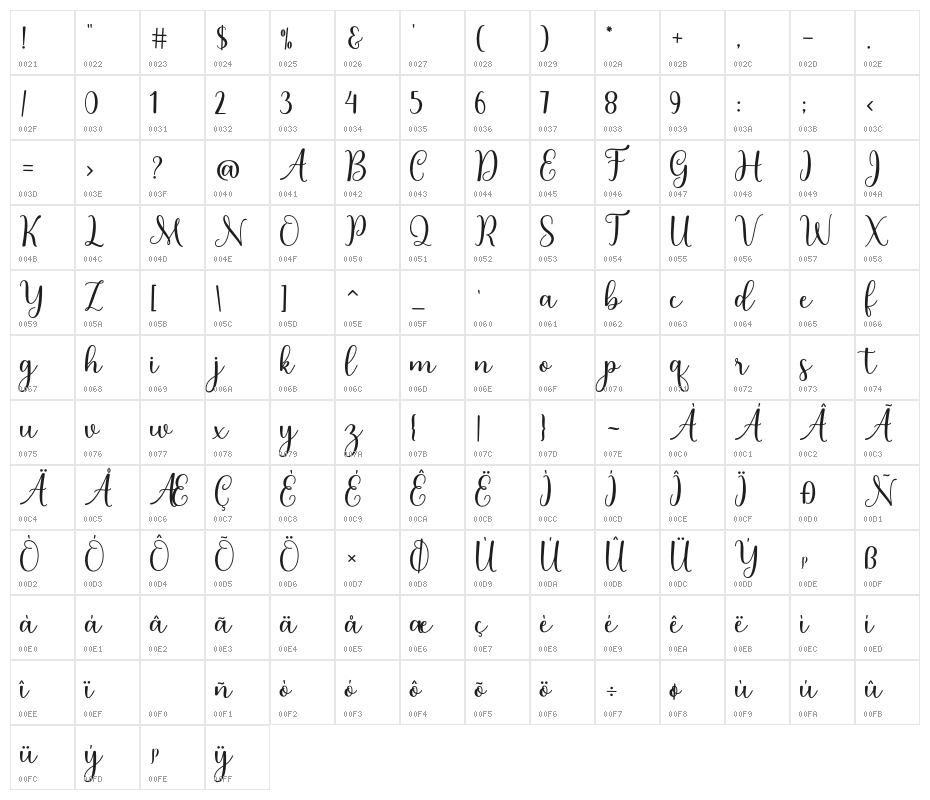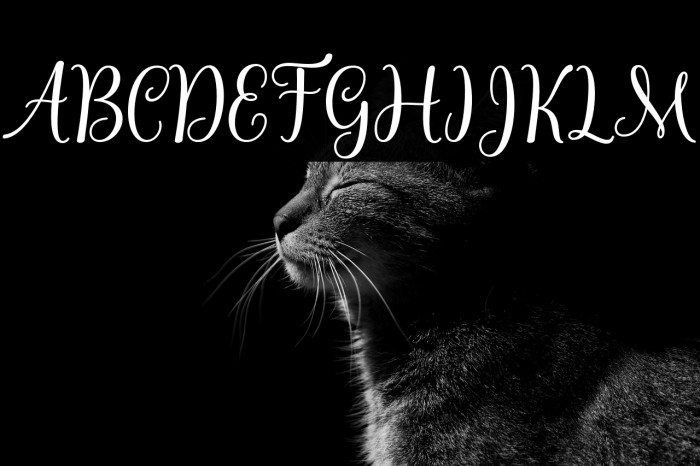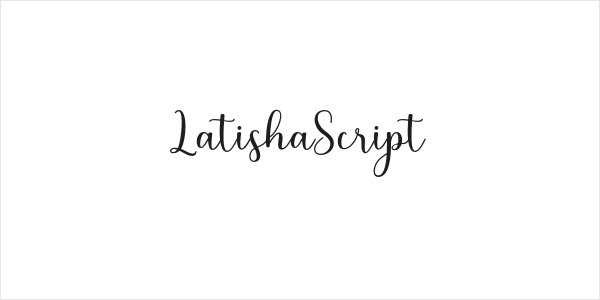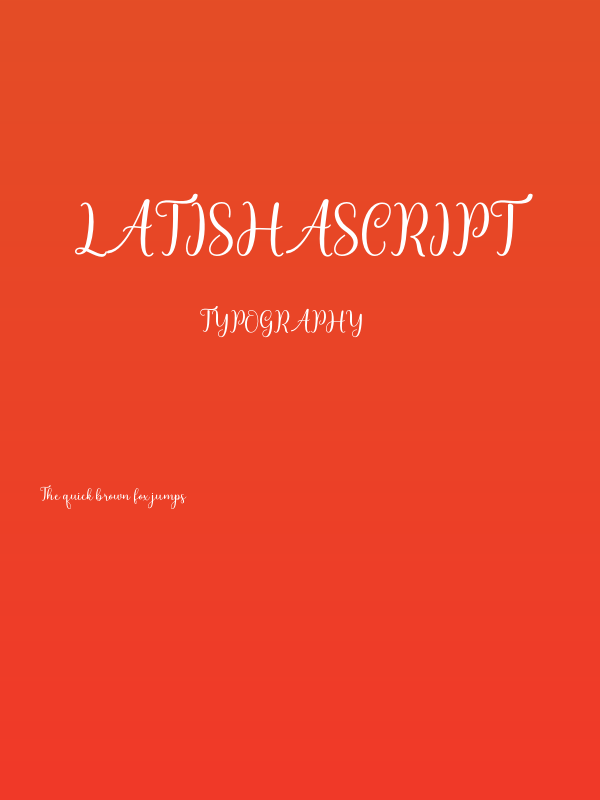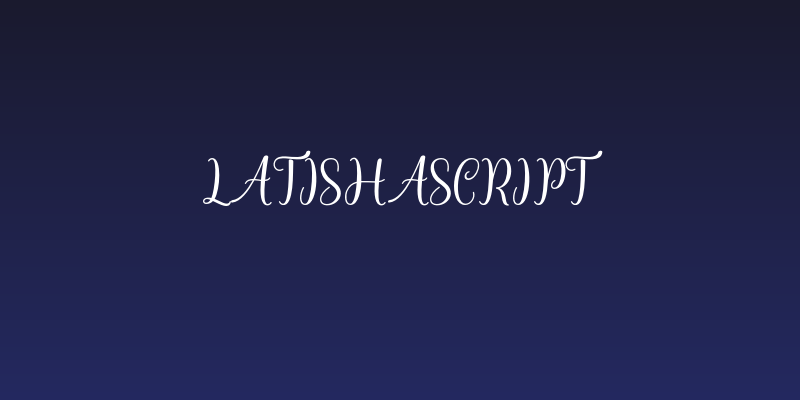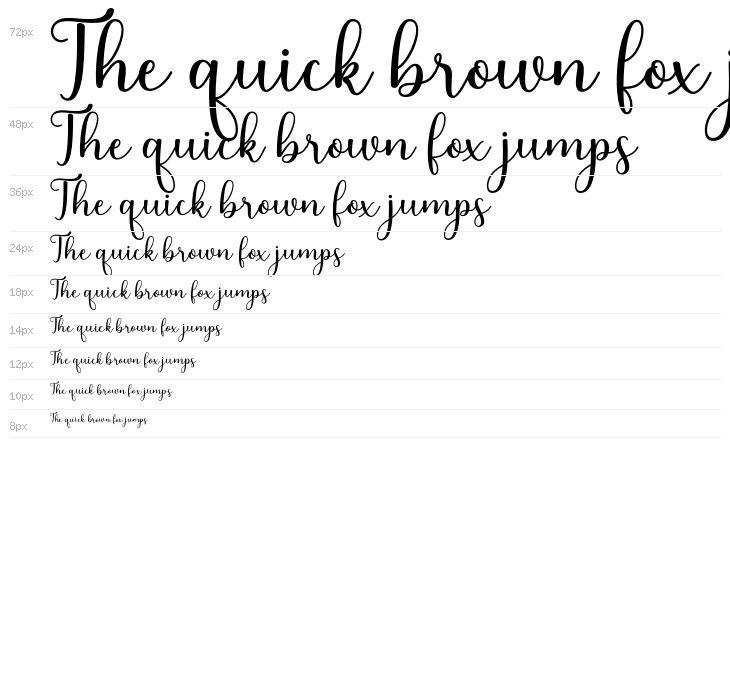
LatishaScript Font
LatishaScript Description
This elegant script font features fluid, cursive strokes that create a sense of movement and grace. The uppercase letters are characterized by their sweeping curves and loops, giving them a sophisticated and decorative appearance. The lowercase letters maintain a consistent flow, with some letters extending below the baseline, adding to the font's dynamic nature. The numerals are clear and legible, with a slight slant that complements the overall style. Special characters are thoughtfully designed to match the aesthetic, making this font versatile for various applications.
| Overall Style | Elegant |
| Use Case | Logos, Invitations, Decorative text |
| Proposed Projects | Ideal for wedding invitations, elegant branding, greeting cards, and decorative signage. |